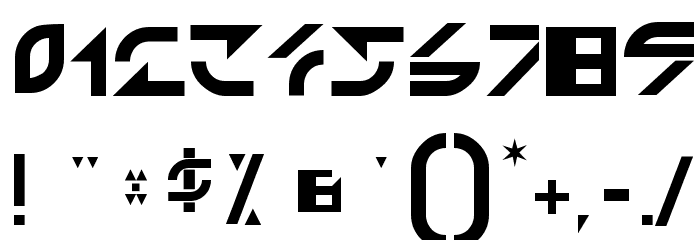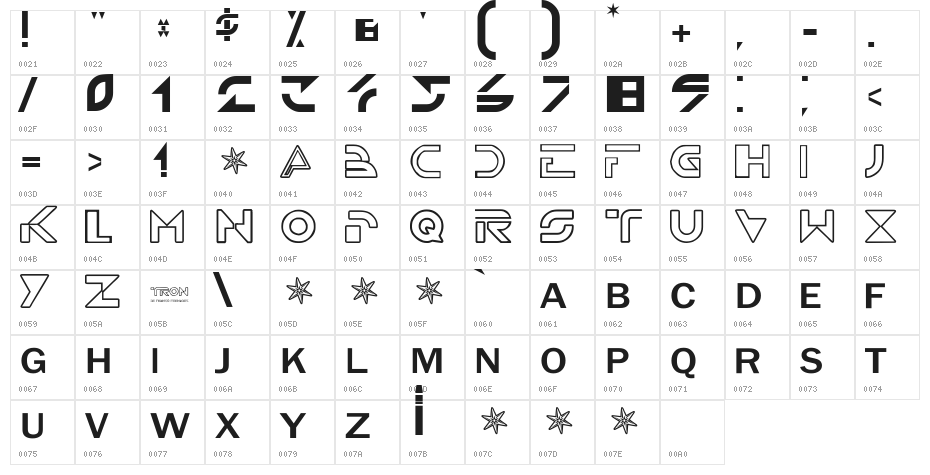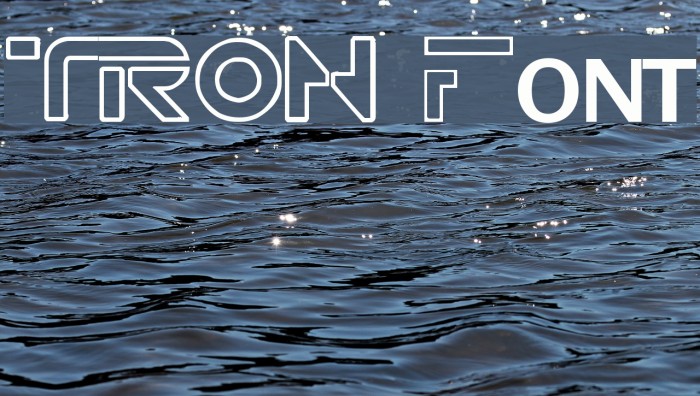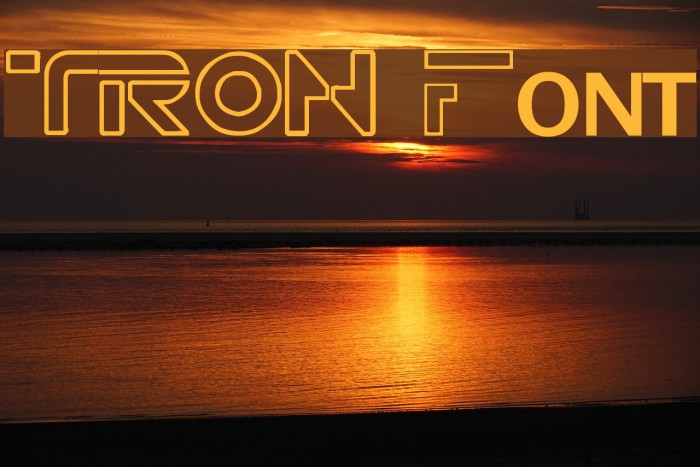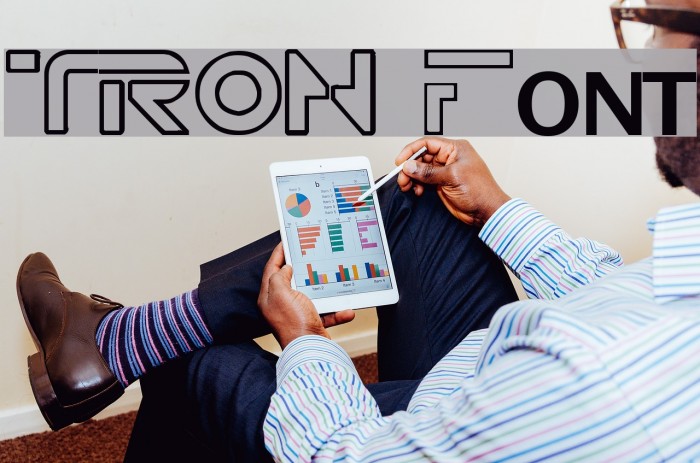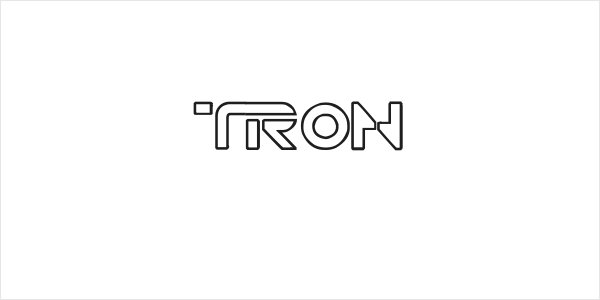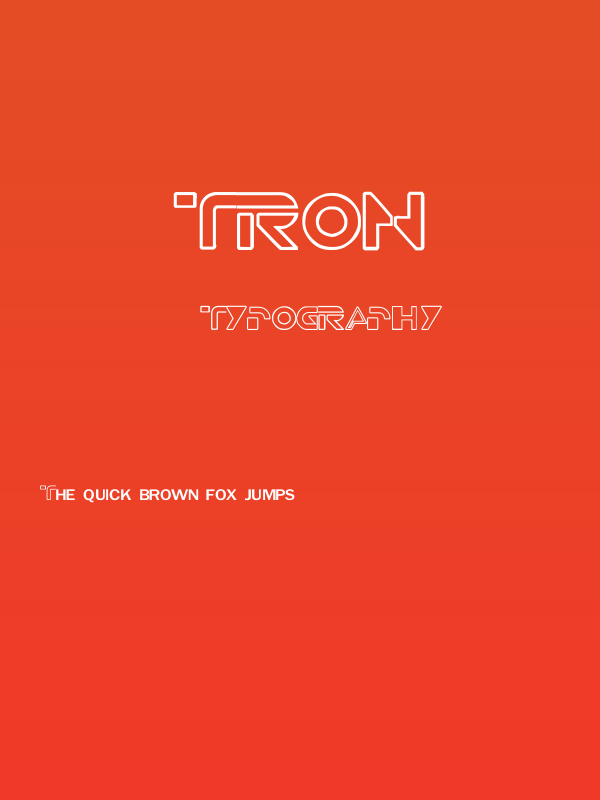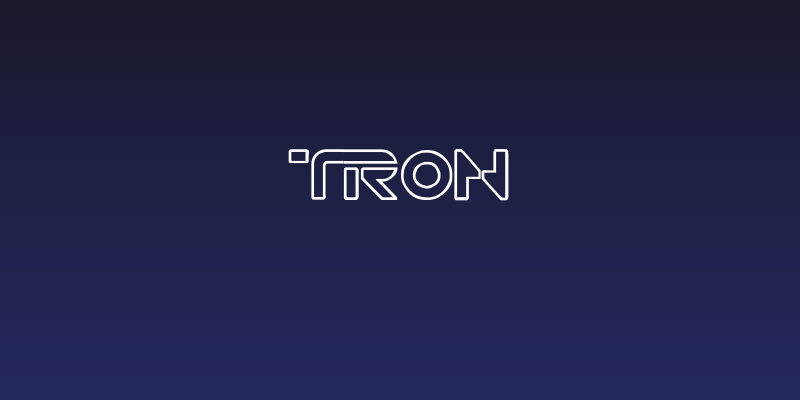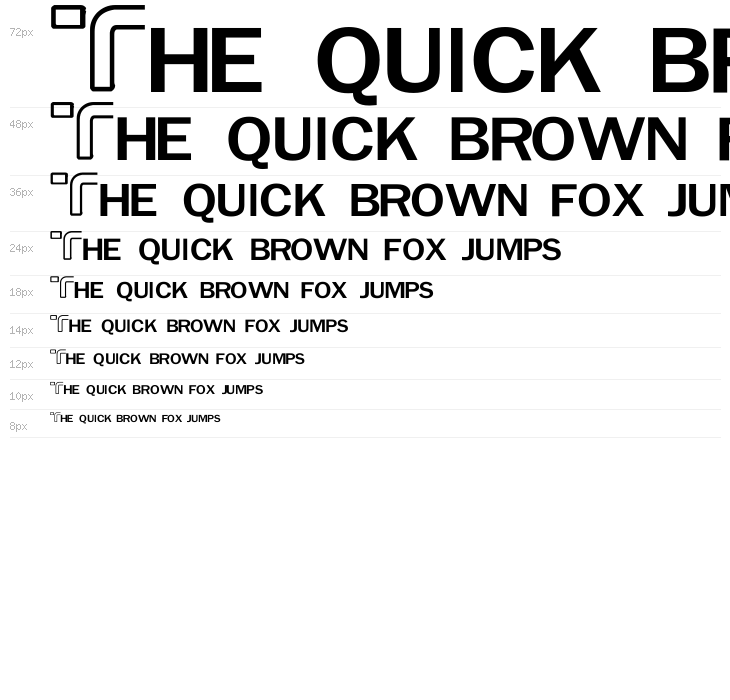
TRON Font
TRON Description
This font features a futuristic and geometric style, characterized by sharp angles and clean lines. The uppercase letters have a distinct, bold appearance with a unique, almost circuit-like design, particularly evident in the letters A, B, and E. The lowercase letters maintain a consistent style, offering a cohesive look across the alphabet. The numerals are stylized with a similar futuristic flair, making them stand out with their angular shapes. Special characters are designed to match the overall aesthetic, providing a complete set for creative projects. This font is ideal for projects that require a modern, tech-inspired look.
Proposed ProjectsIdeal for sci-fi movie posters, video game titles, tech company logos, and digital art projects.